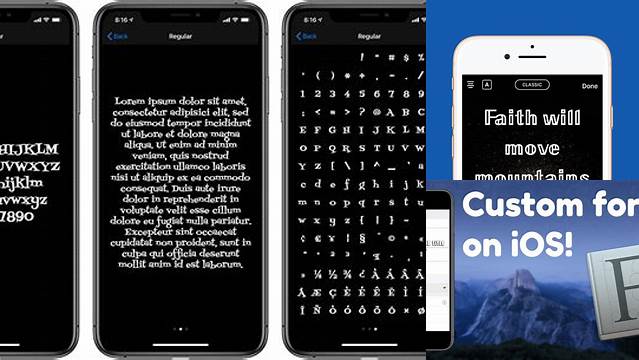
Create Custom Fonts On IPhone For Free: A DIY Guide
Creating your own font on your iPhone for free might sound like a daunting task, but trust me, it's totally achievable! In this guide, we'll break down the process into simple, manageable steps. Whether you're a design enthusiast, a creative soul, or just someone who loves personalizing their tech, this is for you. Let's dive into the world of custom fonts and make your iPhone truly unique! So, how to make your own font on iphone for free? Let's find out!
1. Understanding Font Creation Basics on iPhone
Before we jump into the how-to, let's get a grip on the basics. Font creation involves designing individual characters (letters, numbers, symbols) and then compiling them into a usable font file. On an iPhone, this typically involves using a font-making app, since the native iOS doesn't support font creation directly. You'll need to understand the different types of fonts (like TrueType or OpenType), but don't worry, most apps simplify this part. Understanding the grid system used in font design is also crucial; each character fits within a specific grid, ensuring consistency across the font. This involves paying attention to baselines, x-heights, and other typographic terms, but again, the apps usually guide you through these. So, fundamentally, you're crafting each letterform and then packaging it up to work system-wide. When you think about how to make your own font on iphone for free, it's about understanding this foundation first.
2. Best Free Font Creation Apps for iOS
Okay, so you’re ready to start making fonts, but what tools should you use? The good news is, there are some fantastic free apps available for iOS that can help you on your font-making journey. Apps like Fontastic, iFontMaker, and Calligraphr (which has an iPhone component) are great starting points. Each app has its own unique interface and set of features. Some offer more detailed drawing tools, while others focus on simplicity and ease of use. Fontastic, for example, allows you to create icon fonts, which are perfect for web design and app development. iFontMaker is known for its intuitive drawing interface, allowing you to sketch your characters directly on the screen. Calligraphr lets you upload your handwriting and turn it into a font. When you consider how to make your own font on iphone for free, these apps are your best friends. It’s worth trying a few to see which one clicks with your style and workflow.
3. Step-by-Step Guide: Creating Your First Font
Alright, let's get practical. Here’s a step-by-step guide on creating your first font on your iPhone for free. First, choose your app – let’s say you go with iFontMaker. Start by opening the app and selecting the option to create a new font. You'll then see a grid for each character. Now, the fun begins! Using your finger or a stylus, start drawing each letter, number, and symbol. Pay attention to the consistency of your lines and shapes. Most apps offer tools to adjust the thickness and style of your strokes. Once you’ve drawn all the characters, you can preview your font and make any necessary adjustments. Finally, export your font file. This usually involves choosing a file format (like TTF) and then sharing it to a cloud storage service or emailing it to yourself. Remember, how to make your own font on iphone for free is all about taking it one step at a time. Don't rush, have fun, and let your creativity flow!
4. Designing Individual Characters: Tips and Tricks
Designing individual characters is where the magic happens, but it's also where the details matter. Consistency is key. Try to maintain a uniform style across all your letters. This means keeping the same stroke thickness, slant, and overall feel. Start with the basic letters (like 'a', 'b', 'c') and then move on to the more complex ones. Use guides and grids within the app to help you align your characters properly. Don't be afraid to experiment with different styles – serif, sans-serif, script – but always keep readability in mind. A beautifully designed font is useless if people can't read it! Consider the negative space within and around your letters; it's just as important as the strokes themselves. Regularly preview your font to see how the characters look together. And remember, practice makes perfect! The more you design, the better you’ll get at creating unique and legible fonts. Thinking about how to make your own font on iphone for free also involves honing your design skills.
7. Using AnyFont to Install Custom Fonts
AnyFont is another excellent app for installing custom fonts on your iPhone. It works similarly to iFont but has its own unique interface and features. To use AnyFont, first, download it from the App Store. Then, import your font file into AnyFont. You can do this in a variety of ways, such as opening the font file from an email, cloud storage, or another app. AnyFont will then display a preview of your font. To install it, tap the "Install" button. AnyFont will guide you through the process of installing a configuration profile, just like iFont. You'll need to go to your iPhone's Settings, tap "Profile Downloaded," and follow the instructions to install the profile. Once the profile is installed, your font will be available in compatible apps. AnyFont also has a useful feature that allows you to install fonts directly from websites, making it even easier to find and use new fonts. When thinking about how to make your own font on iphone for free and getting it onto your system, AnyFont is a solid choice.
8. Troubleshooting Font Installation Issues
Sometimes, installing custom fonts doesn't go as smoothly as planned. Don't panic! Here are some common issues and how to fix them. One common problem is that the font doesn't show up in your apps after installation. This could be because the app you're using doesn't support custom fonts, or because the font wasn't installed correctly. Make sure you're using an app that supports custom fonts. If you're sure the app supports custom fonts, try restarting your iPhone. This can sometimes resolve the issue. Another potential problem is that the configuration profile installation fails. This could be due to a corrupted profile or a conflict with another profile. Try deleting the profile and reinstalling it. Also, make sure you've granted the necessary permissions for the installation. If you're still having trouble, check the app's support resources or contact their customer support. Remember, learning how to make your own font on iphone for free also means learning how to troubleshoot when things go wrong.
9. Tips for Font Design Consistency
Consistency is the name of the game when it comes to font design. A consistent font looks professional and is much easier to read. Here are some tips to help you achieve consistency in your font designs. First, establish a set of guidelines for your font. This could include things like stroke thickness, x-height, and overall style. Stick to these guidelines as you design each character. Use grids and guides within your font-making app to help you align your letters and maintain consistent proportions. Pay close attention to the negative space around your letters. Consistent negative space is just as important as consistent letterforms. Regularly preview your font and compare the characters side by side. This will help you spot any inconsistencies. It's also helpful to get feedback from others. A fresh pair of eyes can often catch things you might have missed. As you explore how to make your own font on iphone for free, remember that consistency is what separates a good font from a great one.
So there you have it! Creating your own font on your iPhone for free is a journey filled with creativity and learning. From understanding the basics to mastering advanced techniques, you've got the tools and knowledge to bring your typographic visions to life. Happy font-making, guys!